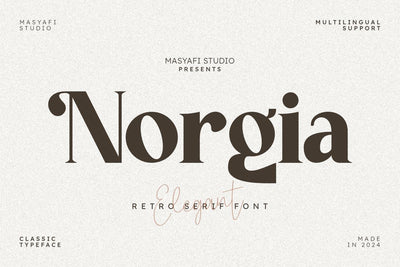
Norgia - Retro Serif Font
Norgia is a Grotesk Retro serif font with a vintage style. font inspired by retro vintage minimalist style typography. This font is very suitable for branding, logos, marketing, social media, quotes, business cards, printing, web labels and anything that smells elegant, classic, vintage, minimalist and retro.